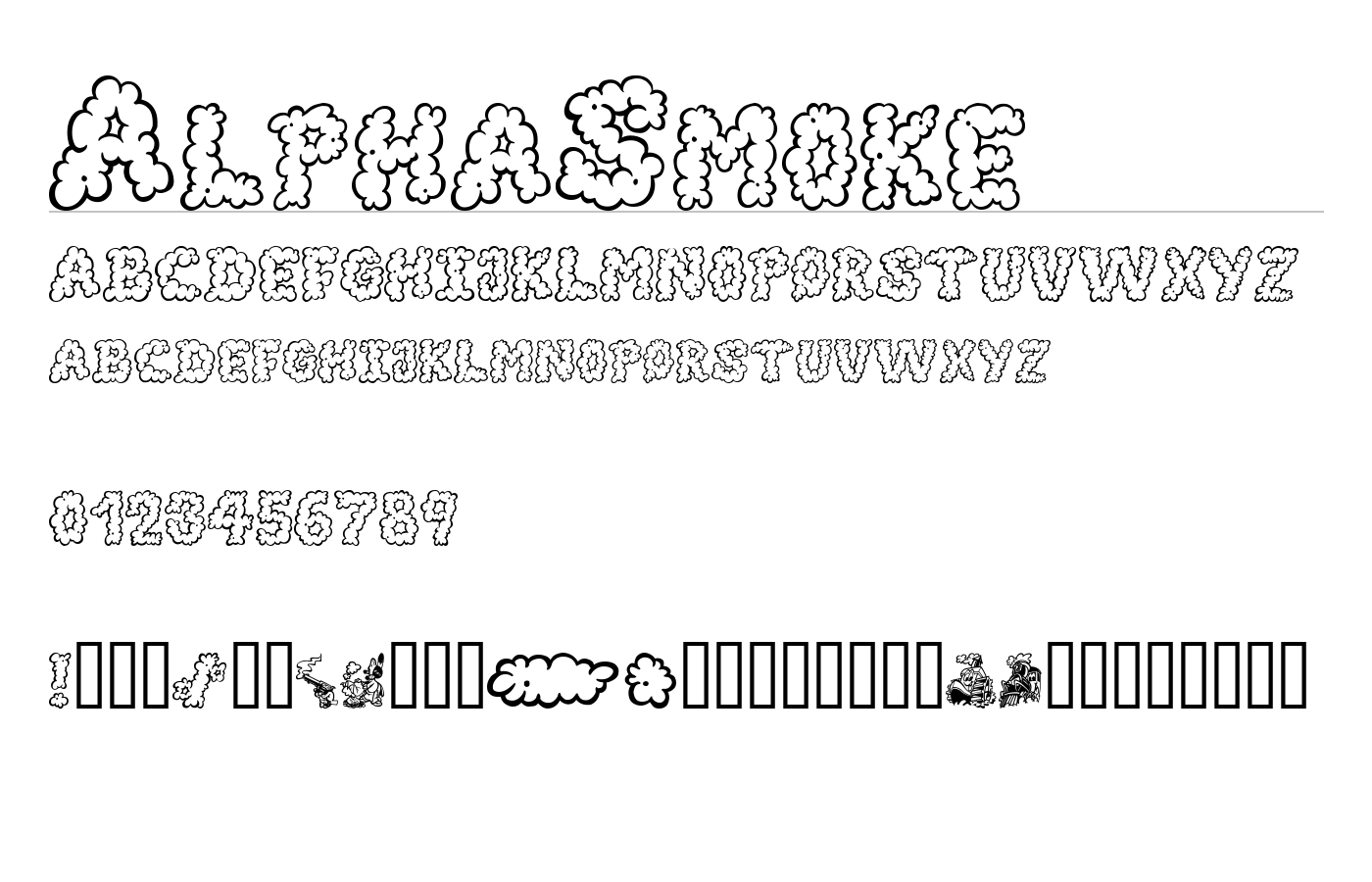
AlphaSmoke is a whimsical display font that mimics billowing smoke clouds, with rounded, fluffy shapes forming each letter. Its playful and casual style makes it perfect for creative projects, fun branding, or quirky headlines where a lighthearted, expressive vibe is needed. This font stands out best in large sizes due to its detailed, decorative character shapes.
AlphaSmoke Font
About AlphaSmoke Font